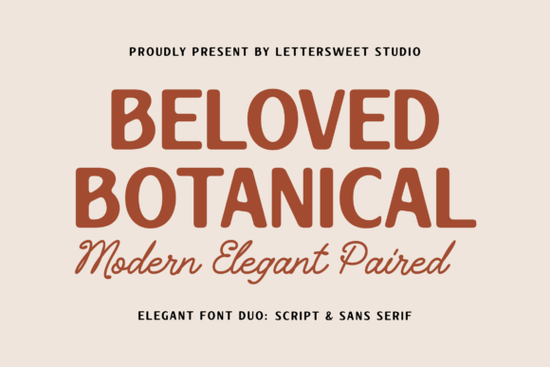
When you're working on a wedding invitation or a boutique brand identity, the font pairing you choose can make or break the design. Beloved Botanical Font solves the common problem of finding a script and sans serif that actually work together without hours of trial and error.
This font duo pairs a clean, bold sans serif with a flowing, natural-looking script. The result is a combination that looks polished but still feels approachable. If you've ever struggled to match two fonts that complement each other, this pairing does the heavy lifting for you.
What makes this font duo different from other pairings?
Most font bundles give you a collection of styles that may or may not work together. Beloved Botanical was designed as a deliberate pairing. The sans serif provides structure, readability, and a modern feel, while the script adds personality and warmth.
That contrast is what makes it work. You get the professional edge of a clean typeface with the emotional connection of a hand-lettered script all in one package.
It's also worth comparing it to other versatile options like a modern geometric sans serif if your project leans more minimal, or something from a handwritten font collection if you need more casual script styles.
What can you actually use it for?
This is where the versatility really shows. Here are some projects where this duo fits naturally:
- Wedding invitations The script handles names and romantic details, while the sans serif covers event information cleanly.
- Beauty and skincare branding It strikes the right balance between elegant and modern, which works well for cosmetics packaging and logos.
- Café and restaurant logos The organic feel of the script pairs nicely with food and beverage branding.
- Boutique packaging Whether it's candle labels, soap wrappers, or gift boxes, this pairing adds a premium touch.
- Social media graphics Use the bold sans serif for headlines and the script for quotes or accent text.
- Print-on-demand products Mugs, tote bags, and apparel designs often need a font pairing that reads well at different sizes.
Does it work for both digital and print projects?
Yes. The sans serif in this duo is designed with clean lines that hold up well in small print sizes, like business cards or product tags. The script has enough detail to look beautiful in larger display settings without becoming hard to read.
If you're designing primarily for screen-based projects social media posts, website headers, digital mockups the pairing renders well at various resolutions. For print, the letterforms are clean enough for professional output.
How does it compare to other font options?
If you need something more industrial or bold, a stencil-style display font like a bold stencil typeface might suit a different kind of project. And for designers who want a broader range of sans serif styles, a sans serif font bundle offers more variety for mixing and matching.
But if your goal is specifically to get a ready-made script and sans serif pairing that looks intentional and polished, this botanical-inspired duo saves you the time of testing combinations on your own.
Is it beginner-friendly?
You don't need advanced typography skills to use this font pair well. Because the two styles were designed to complement each other, you can drop them into almost any layout and they'll work. That makes it a solid choice for small business owners creating their own marketing materials or crafters designing products to sell online.
The clean sans serif handles body text and functional details, while the script brings in visual interest for headings and decorative accents. It's a straightforward system that removes guesswork from the design process.